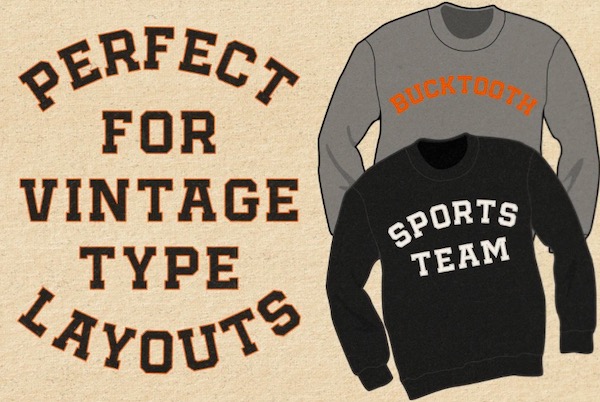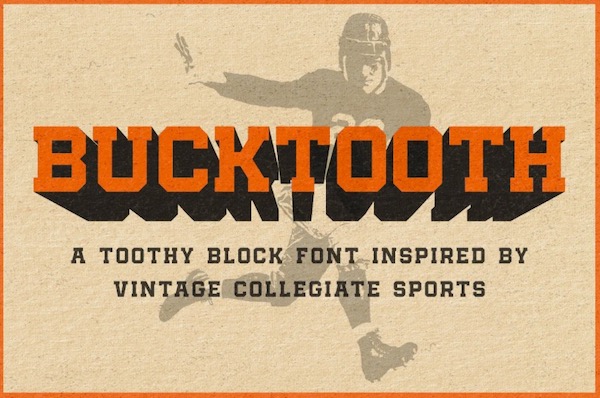
Bucktooth Block font or we can call this display serif font with a different name, Bucktooth Font. This font was created and shared by Wild Giant Studio along with a set full of collegiate letters.
This is really an elegant collegiate block font, and you can use it for your favorite design projects in the future.
Bucktooth Display Serif Font